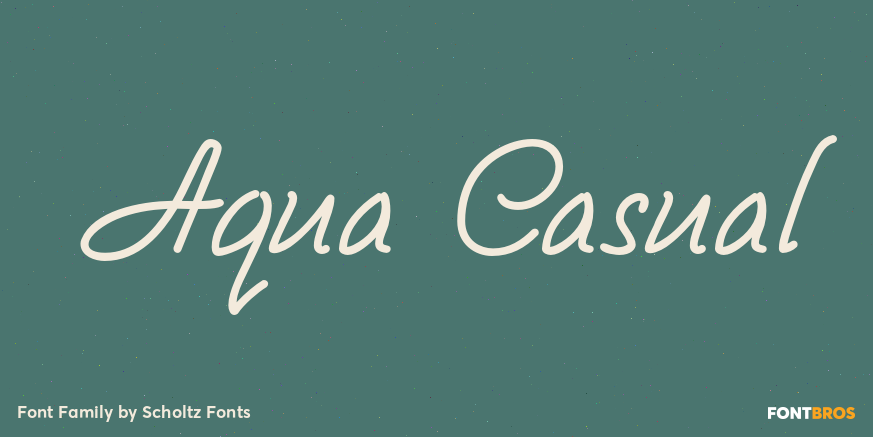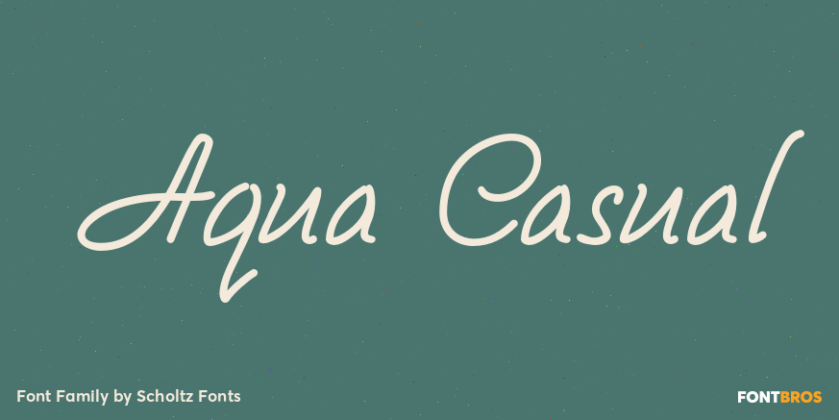
Aqua Casual
About Aqua Casual
The script equivalent of the cool, header font. This font is essentially embedded, by its styling, in the 20th century. Inspired by fragments of some pre-20th century script fonts, I modernized it and added lower case characters. The result captures…